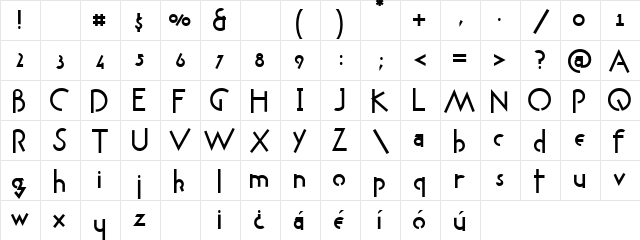
Aliance Regular
Design Context for Aliance Typeface
Aliance takes a measured approach to typography — its balanced proportions and neutral character make it a reliable workhorse for both digital and print work.